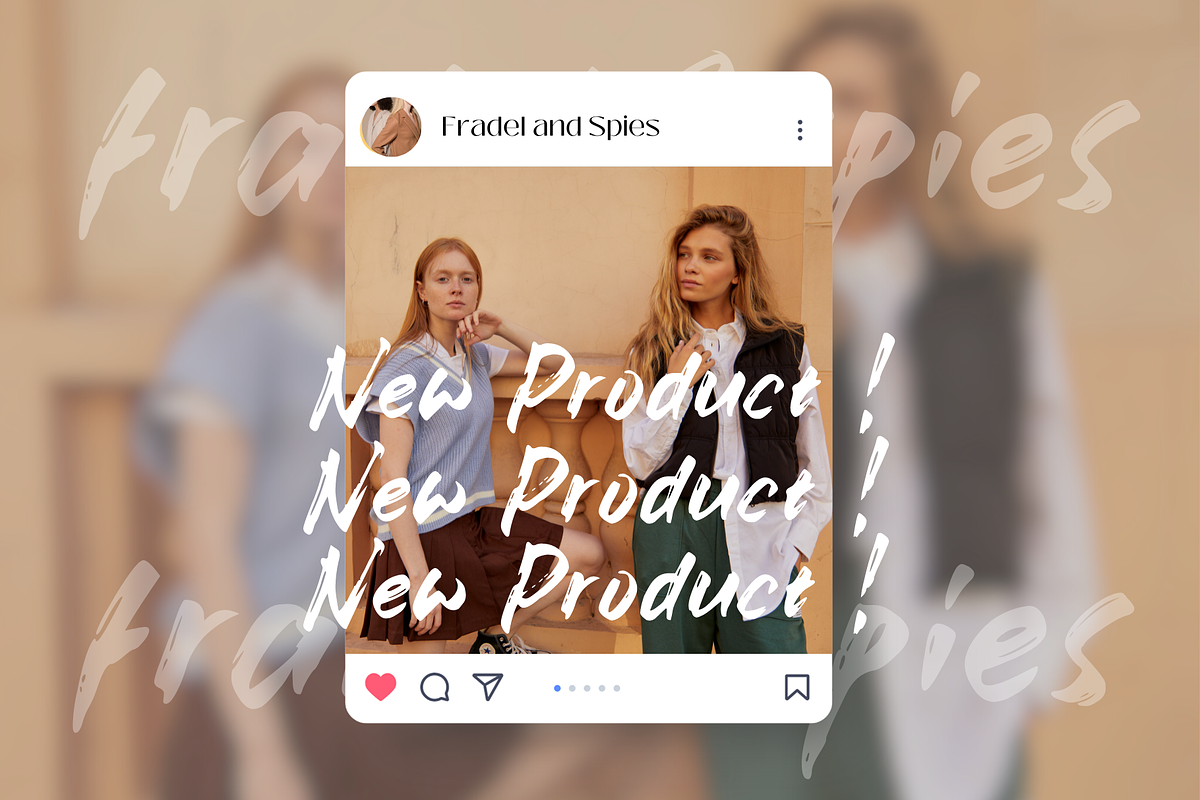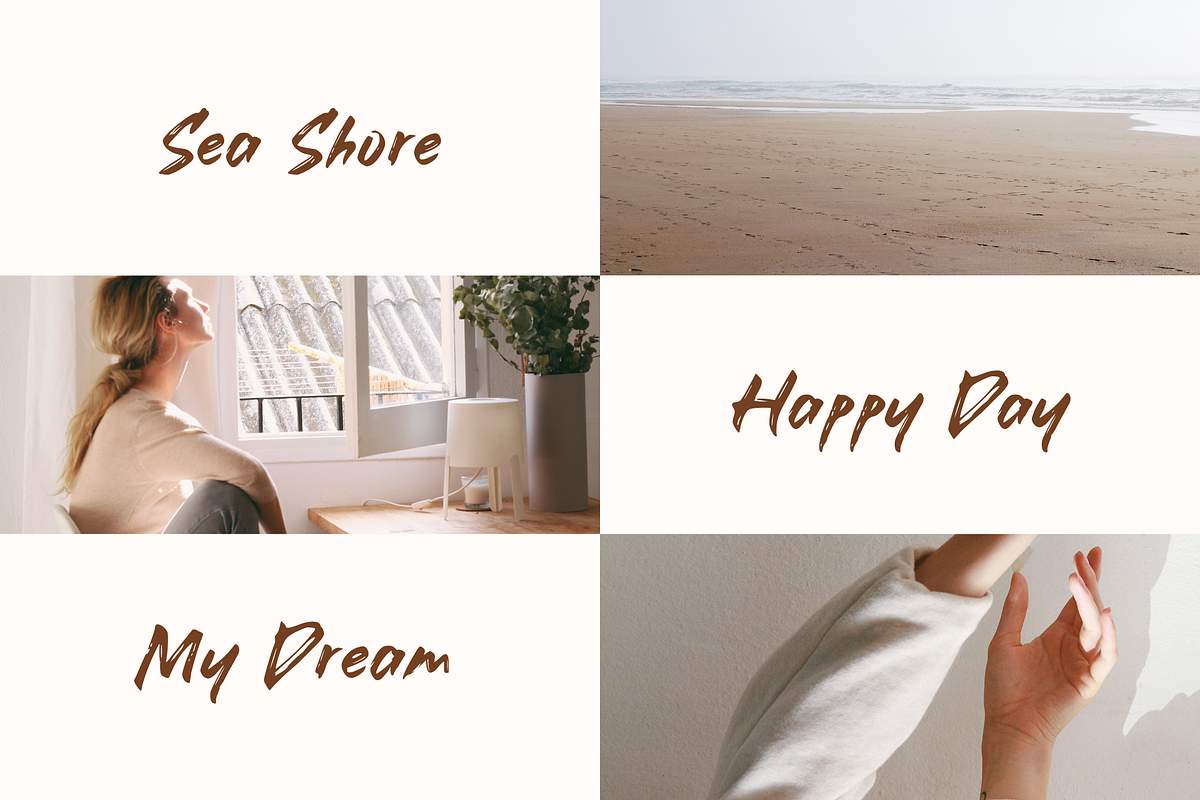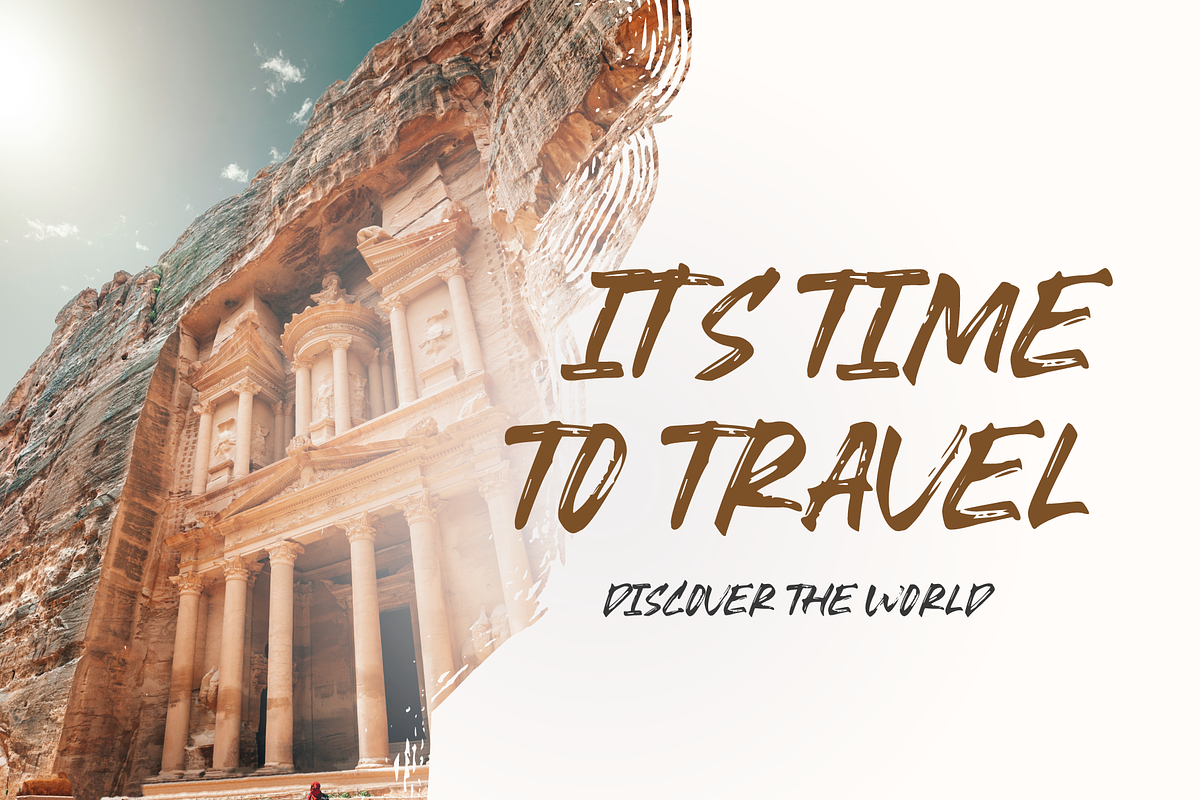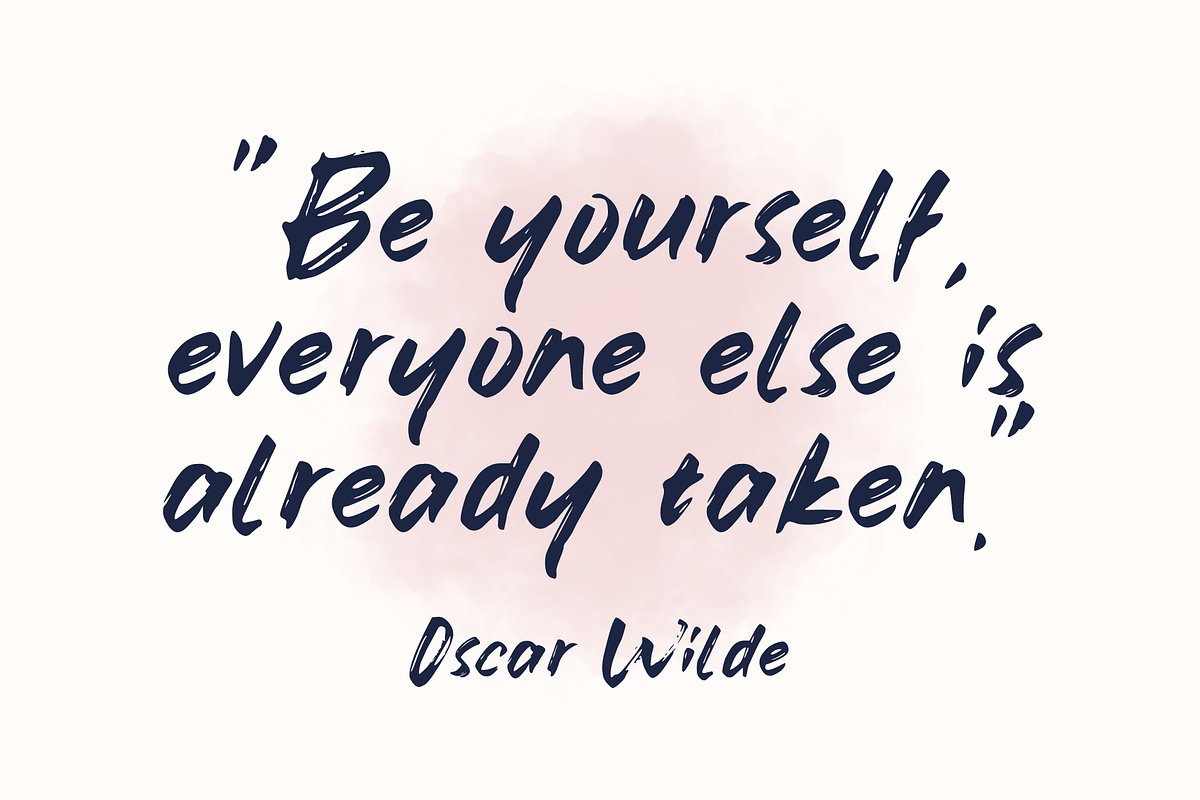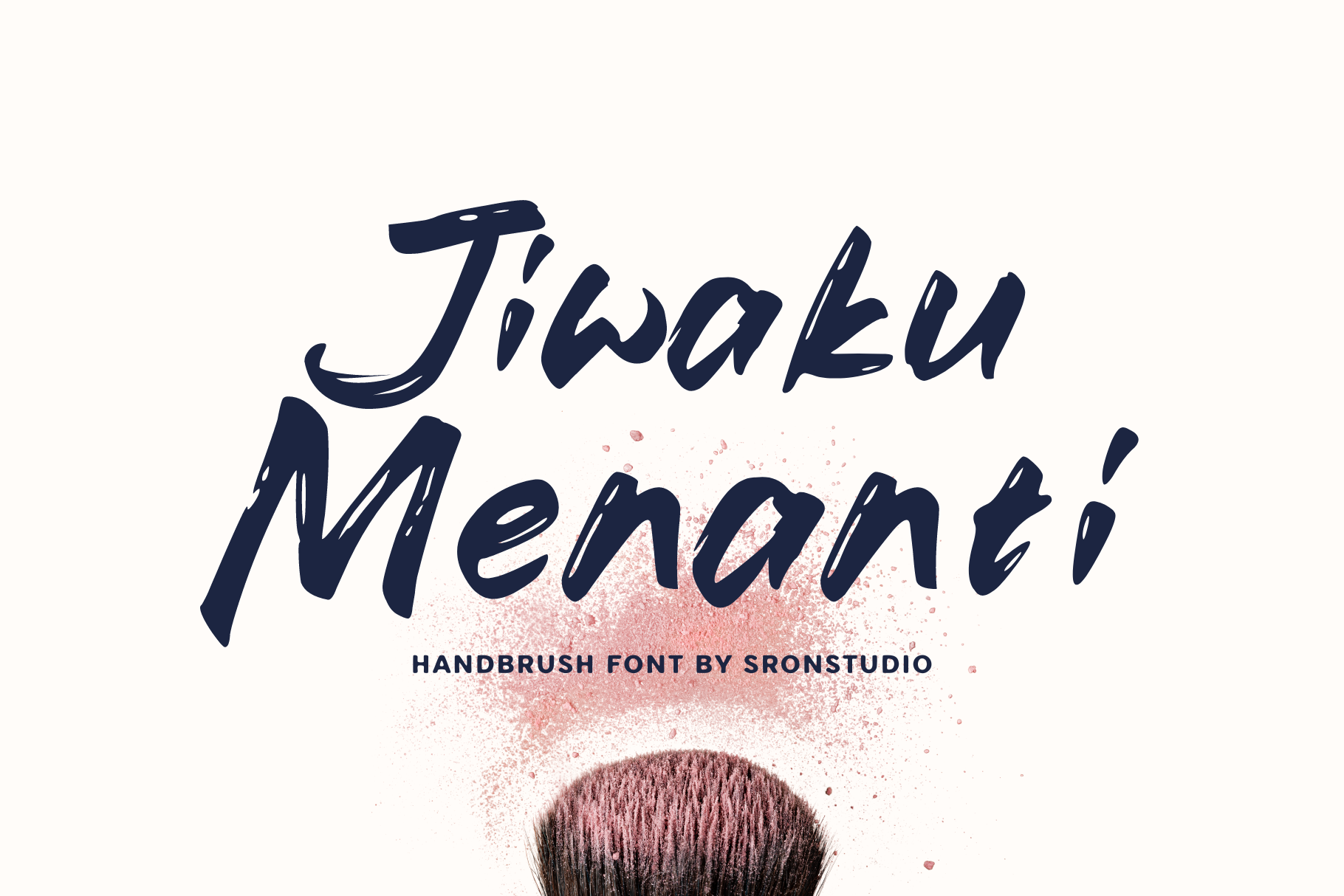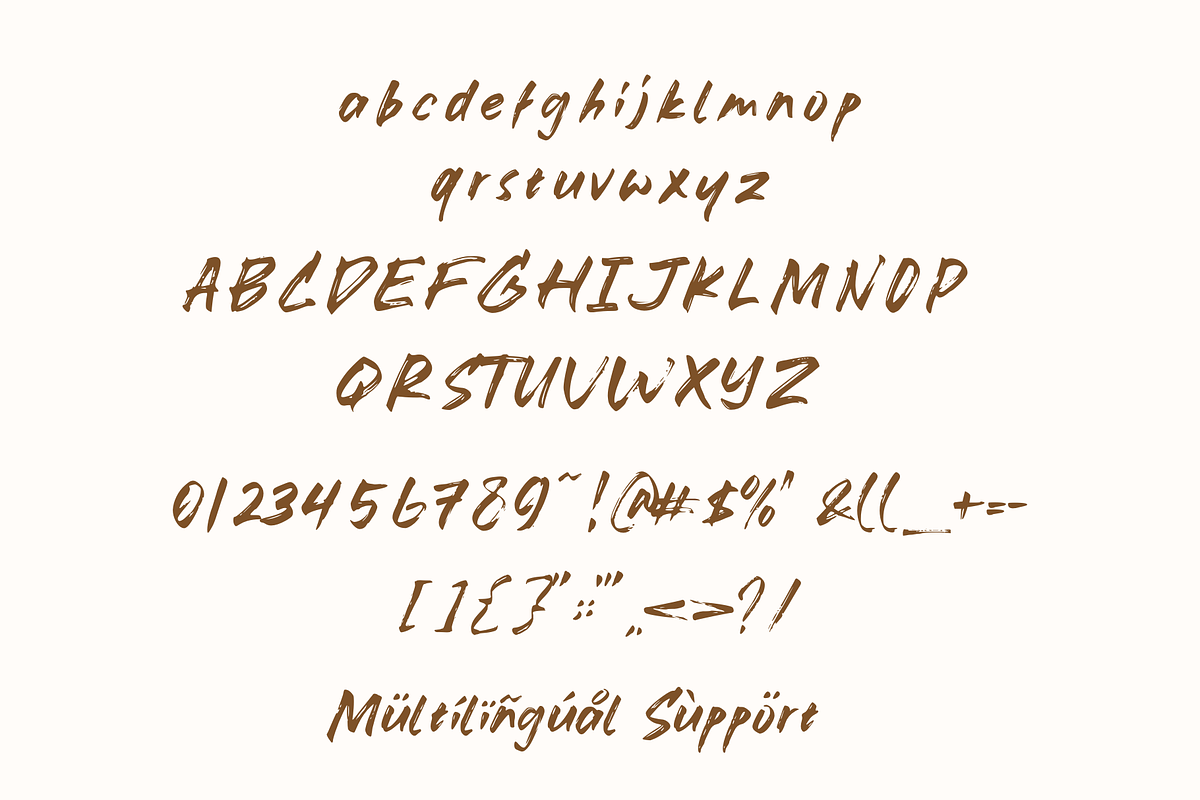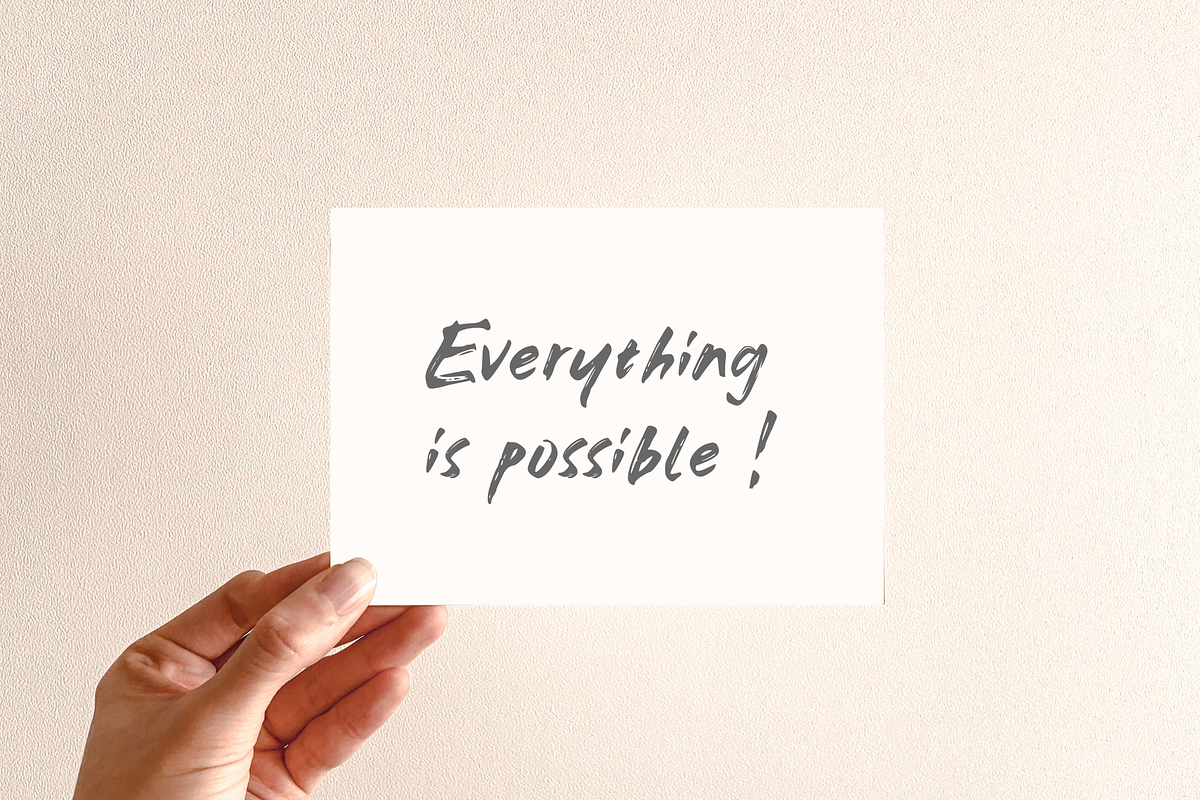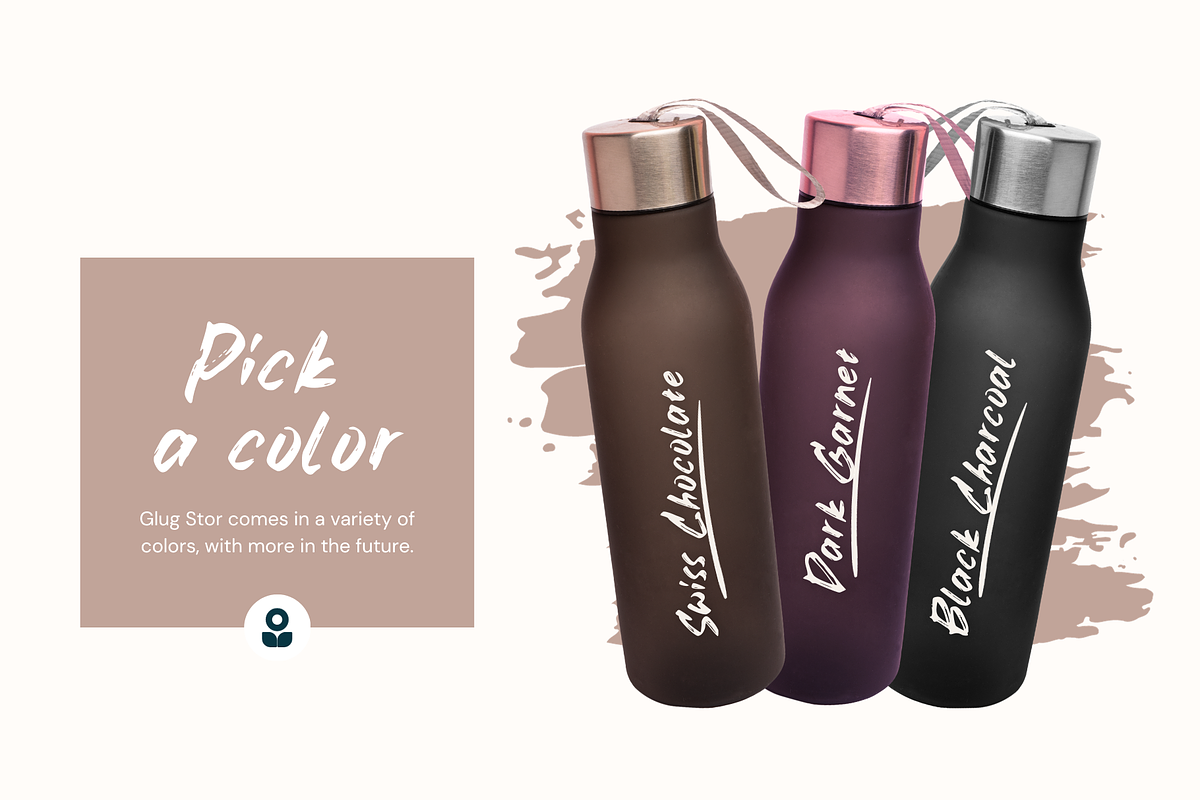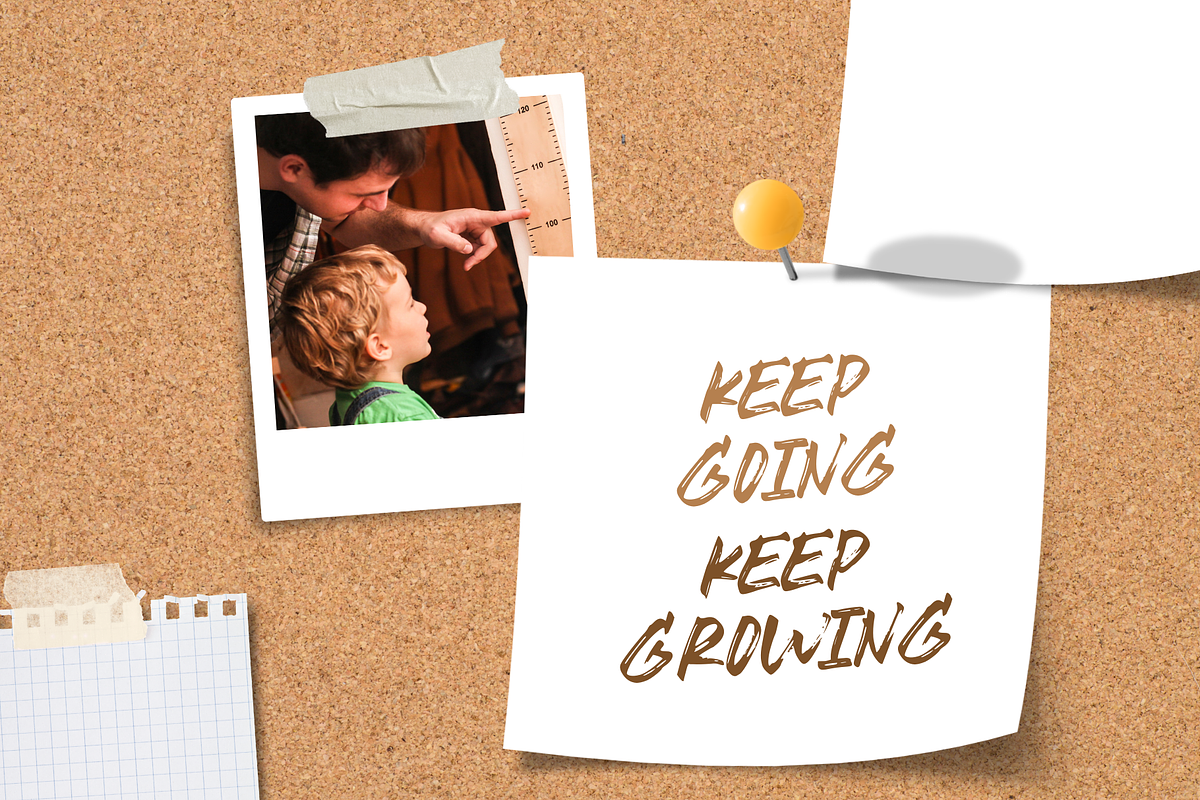
Jiwaku Menanti - Handbrush Font
"Jiwaku Menanti" is a handbrush textured font that captures the essence of raw, organic expression. With its rugged letterforms and authentic textures, it adds a touch of earthy, handcrafted charm to your designs. Perfect for projects that demand a natural, personal touch, "Jiwaku Menanti" infuses your work with a sense of genuine character and authenticity.
- Uppercase and lowercase letters
- Multilingual, numerals, and punctuation